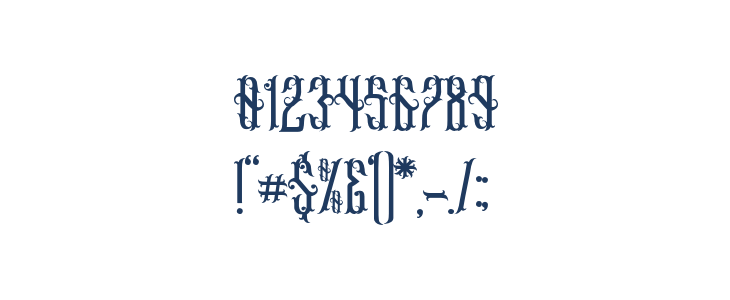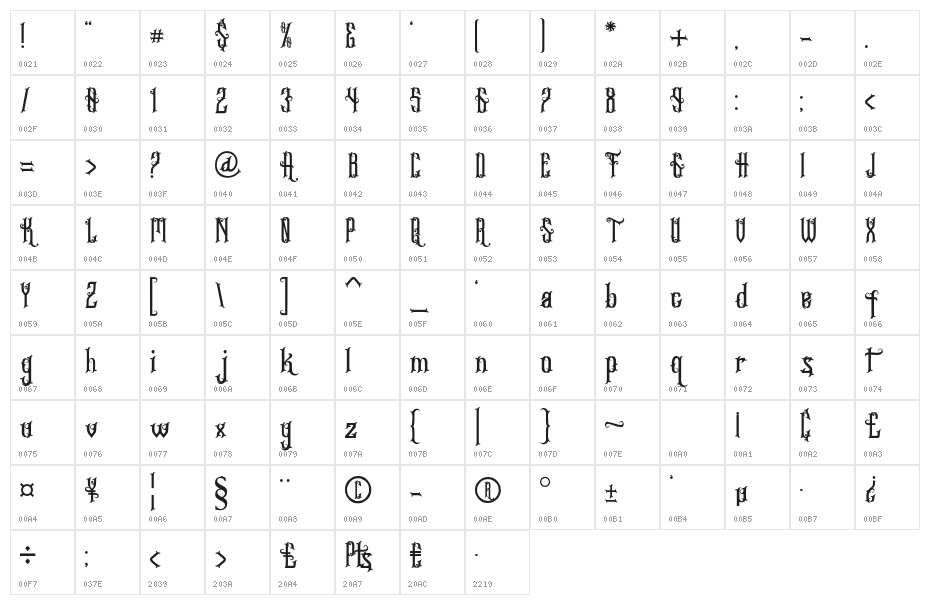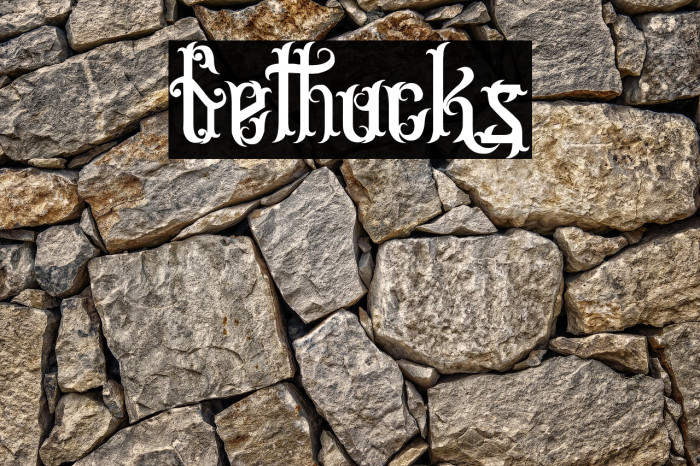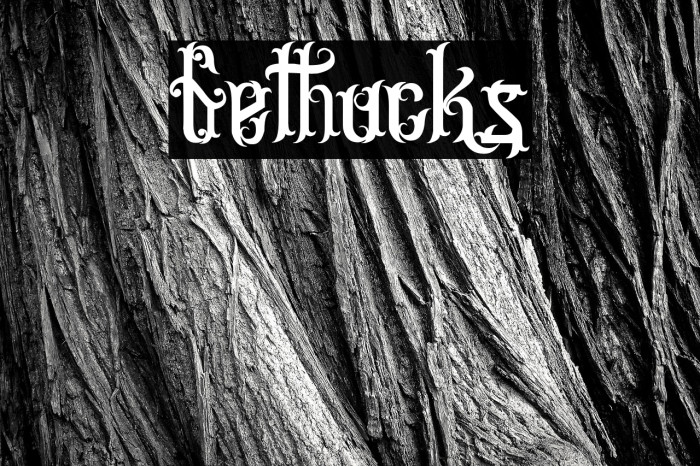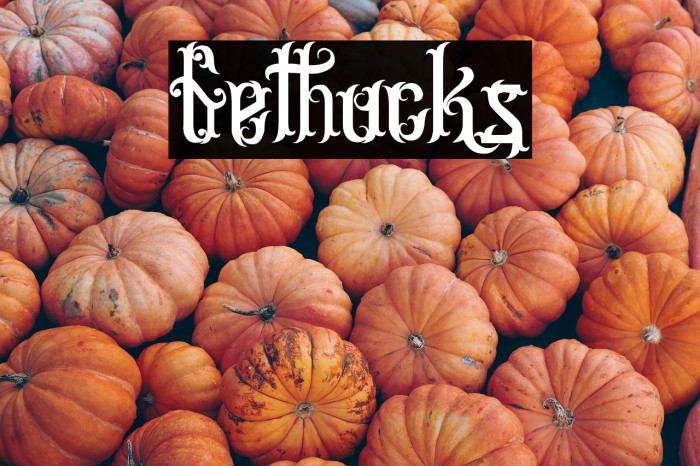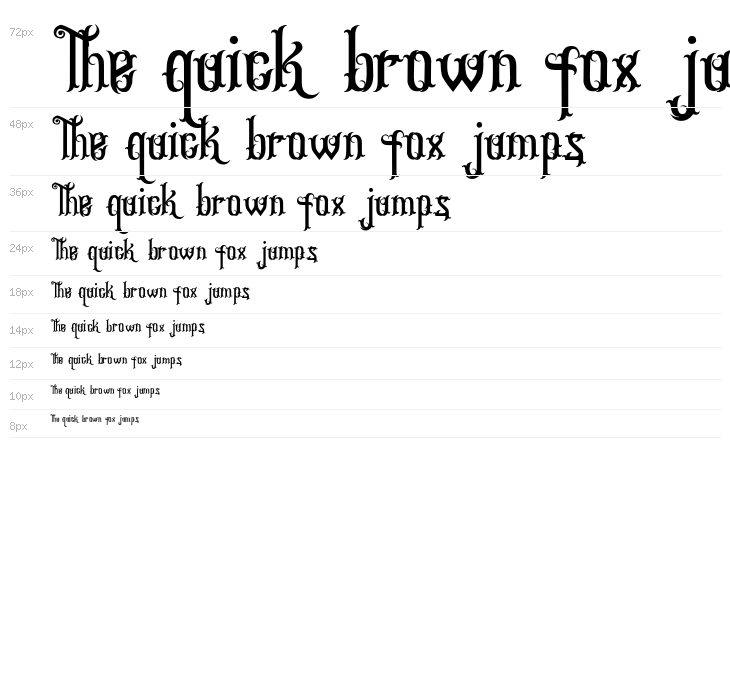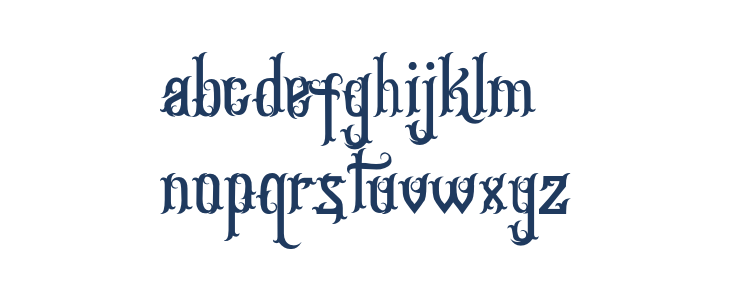
Gethucks Font
Gethucks Description
This font features an intricate and ornate design, reminiscent of traditional blackletter styles. Each character is adorned with elaborate flourishes and sharp angles, giving it a highly decorative and gothic appearance. The uppercase letters are particularly striking, with bold, sweeping lines and detailed embellishments. The lowercase letters maintain the same level of detail, ensuring consistency throughout the typeface. Numbers and special characters are equally ornate, making this font suitable for projects that require a dramatic and historical touch.
Overall StyleVintage, Decorative
Use CaseHeadlines, Logos, Decorative text
Proposed ProjectsIdeal for use in historical or fantasy-themed projects, such as book covers, posters, or branding for events that require a dramatic and vintage aesthetic.